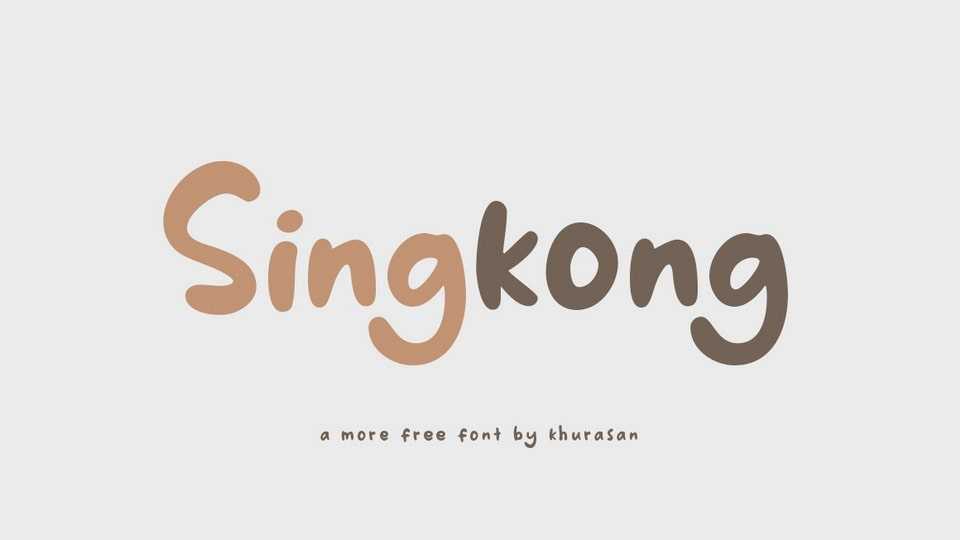
Download Singkong font, a simple and natural handwritten font. Singkong is perfect for posters, logos, magazines, book covers, banners, and many more lovely designs!